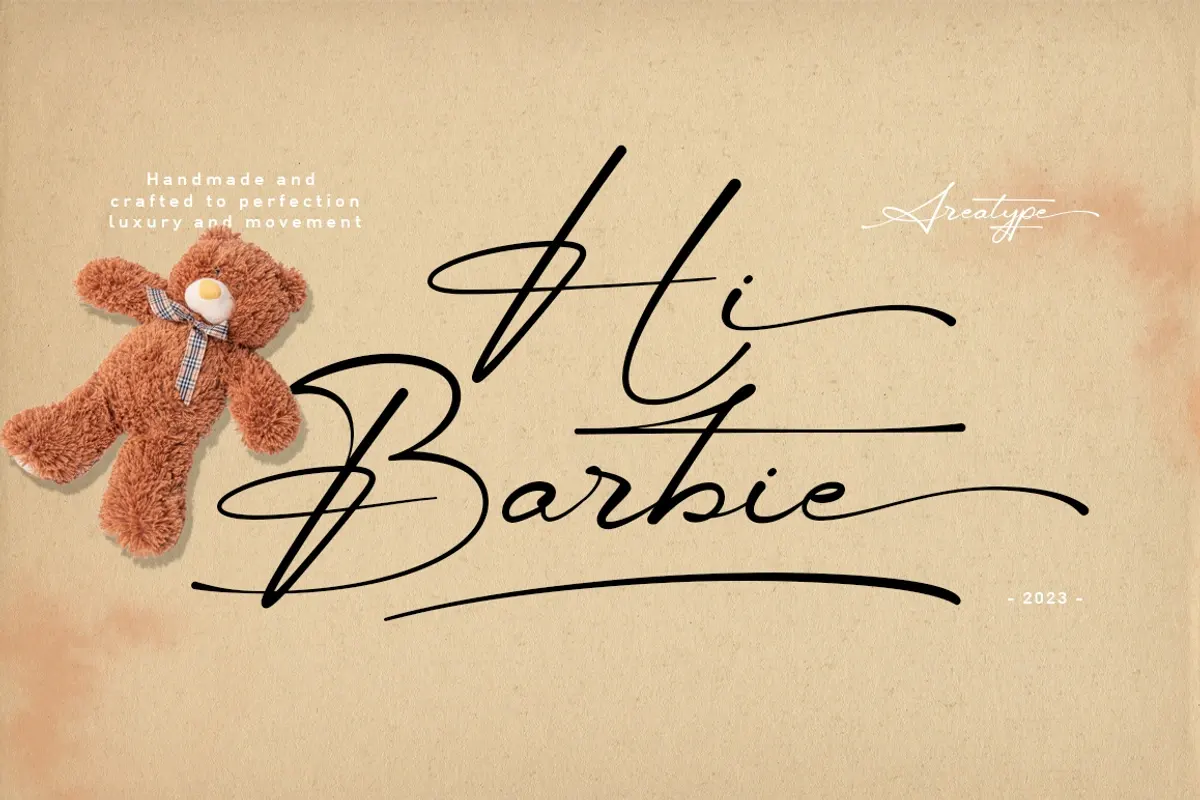
Hi Barbie Handmade Free Download
Hi Barbie Handmade Font Free Download is a playful and charming typeface that brings a touch of fun, femininity, and handcrafted flair to any design. Please note, you are required to purchase this font for commercial use. It is available for free download for testing and personal projects only.
With its bubbly curves, hand-drawn style, and cheerful personality, Hi Barbie is perfect for party invitations, kids' designs, social media graphics, branding, and lifestyle blogs. It radiates positive energy and creativity, making your message feel personal and delightful.